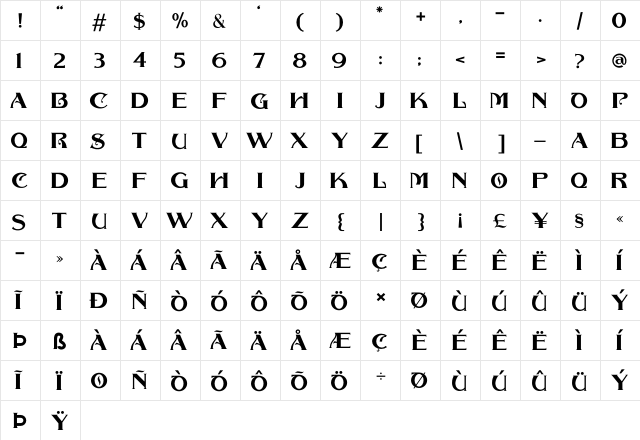
COLLONAR CAP Regular Font Preview
COLLONAR CAP Regular
COLLONAR CAP Regular Font Details
| Designer | Lettersiro 2018 |
Design Context for COLLONAR CAP Typeface
COLLONAR CAP is a composed and adaptable typeface that performs quietly and consistently across a wide range of design contexts.